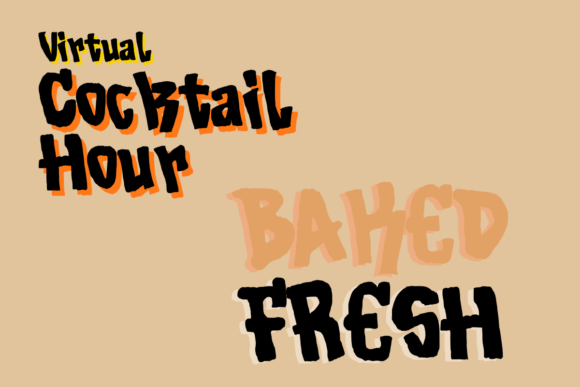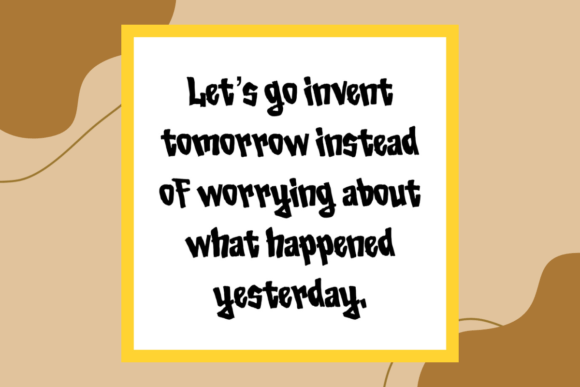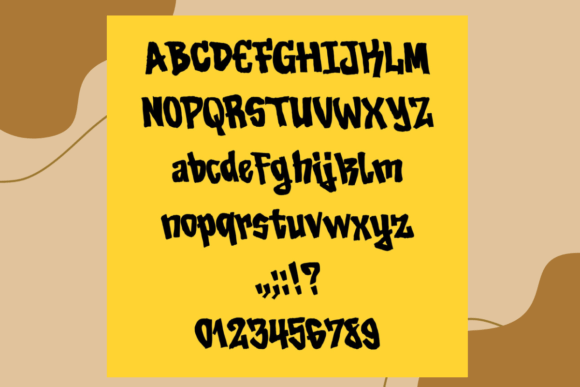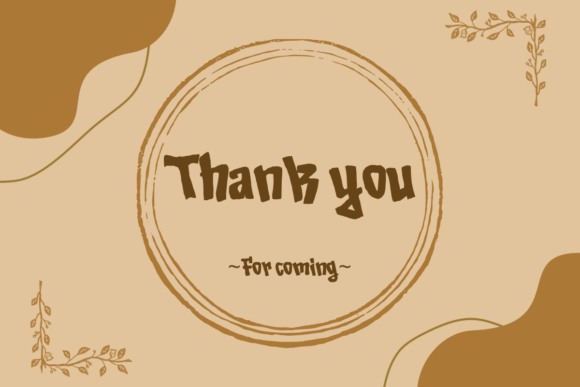
Introduction to Interesting Font
Have you ever stared at a blank canvas, struggling to find the perfect font to bring your creative project to life? I know I have. There’s nothing quite like the feeling of finally discovering that one special font that makes your design sparkle. And that’s exactly what we’re going to talk about today – the wonderful world of Interesting Font.
This sweet and friendly handwritten display font is a game-changer for designers looking to add a touch of whimsy to their high-quality designs. Whether you’re working on a digital project, crafting a unique wedding invitation, or creating a presentation that needs a bit of personality, Interesting Font is the perfect design resource to have in your toolkit.
Key Features of Interesting Font
- High-quality design with a transparent background, perfect for creative projects.
- Includes a comprehensive character set with over 500 glyphs.
- Unique characteristic: features a unique blend of modern and vintage styles, making it perfect for creative projects.
Honest Review: Interesting Font
As a designer, I’m always on the lookout for unique and high quality fonts to elevate my creative projects. I recently came across the “Interesting Font” and was excited to give it a try.
What works well: ✨ The font’s playful and quirky vibe is perfect for adding some personality to my designs. I love how it adds a touch of whimsy to my creative projects. The transparent background feature is also a game-changer – it allows me to easily layer my designs without worrying about background clutter.
- High quality and crisp typography, perfect for print or digital projects.
- Works well with a variety of design styles, from modern to vintage.
Any limitations: ⚠️ While I love the font’s unique features, I do find that it can be a bit overwhelming when used in large quantities. It’s also worth noting that the font may not be suitable for more formal or corporate designs.
Overall, I’m really impressed with the “Interesting Font” and would definitely recommend it to fellow designers looking for a high quality, creative font to add some personality to their projects.
When using Interesting Font, consider the following tips: use it sparingly to add emphasis, experiment with different font sizes and colors to create contrast, and pair it with other high-quality fonts for a cohesive design. Common use cases include creating presentations, flyers, and social media graphics, or using it as a free download for personal design projects.